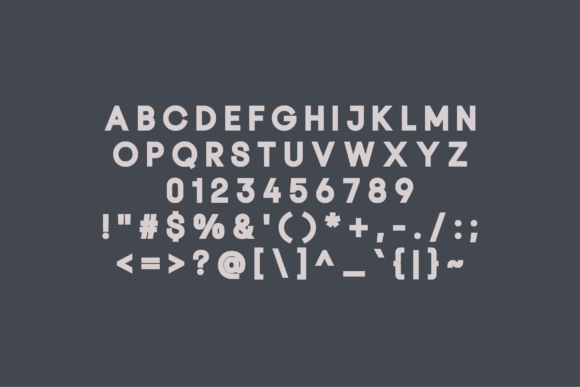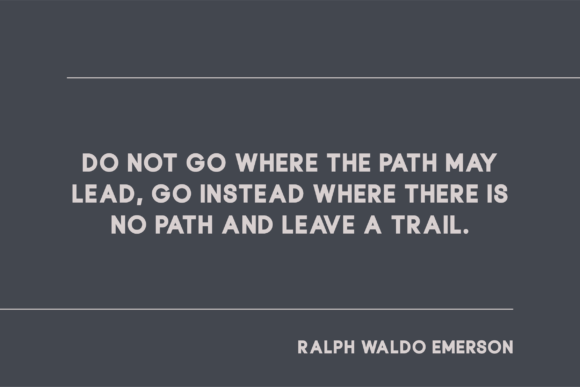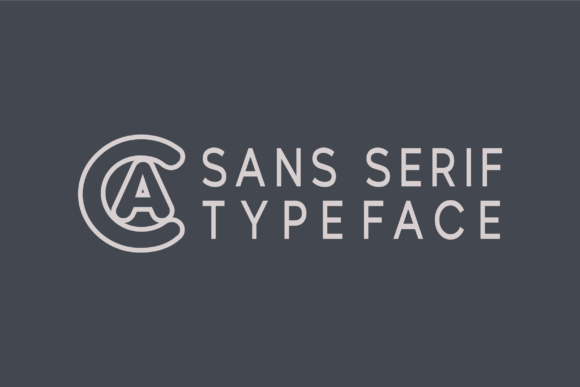
Introducing Autographia Font: Elevate Your Designs with Modern Elegance
In the world of typography, a font can make or break a design. It’s the foundation upon which creativity is built, and the right choice can elevate a project from ordinary to extraordinary. For designers and crafters seeking a modern, classy sans serif typeface, look no further than Autographia Font. This versatile and stylish font is poised to become your go-to choice for a wide range of projects, from logos and weddings to invitations, quotes, advertisements, and more.
What is Autographia Font?
Autographia is a contemporary sans serif typeface that exudes sophistication and elegance. Its clean lines and minimalist aesthetic make it perfect for designs that demand a touch of modernity. The font includes a comprehensive range of characters, featuring upper case letters, numbers 0-9, and a variety of punctuation and symbols. This extensive character set ensures that Autographia can be used in a multitude of contexts, providing flexibility and creativity for designers.
Key Features of Autographia Font
- Upper Case Characters: Autographia includes a full set of upper case letters, allowing for bold and impactful statements.
- Numbers 0-9: The font features clear and readable numbers, suitable for a variety of applications, from pricing to date displays.
- Punctuation and Symbols: A range of punctuation marks and symbols are included, providing everything needed to craft detailed and nuanced designs.
- Sans Serif Design: The clean, sans serif design of Autographia lends itself to a modern aesthetic, perfect for designs that require a sleek look.
One of the standout qualities of Autographia Font is its versatility. This font is not limited to a specific use case; rather, it can be seamlessly integrated into a wide array of projects. Here are some ideal applications for Autographia:
- Logos: Create memorable and impactful logos with Autographia’s bold and clean lines.
- Weddings and Invitations: Add a touch of modern elegance to wedding invitations, save-the-date cards, and other event-related materials.
- Quotes and Typography: Use Autographia to highlight inspirational quotes, phrases, or statements in your designs.
- Advertisements: Elevate your advertising materials with a font that commands attention and exudes professionalism.
- Print and Magazines: Autographia is perfect for editorial designs, including magazines, brochures, and flyers, where readability and style are paramount.
Why Choose Autographia Font?
With so many fonts available, why should Autographia be your top choice? The answer lies in its perfect blend of modernity and class. Autographia is not just a font; it’s a design statement. Its sleek lines and comprehensive character set make it an invaluable asset for designers and crafters looking to create high-quality, visually appealing projects. Moreover, the font’s versatility ensures that it can be used across various platforms and applications, making it a cost-effective solution for your design needs.
Autographia Font is a game-changer for designers and crafters seeking a modern, classy sans serif typeface. Its extensive character set, versatility, and sleek design make it the perfect choice for a wide range of projects. Whether you’re creating logos, wedding invitations, quotes, advertisements, or print materials, Autographia is poised to elevate your designs to new heights. Make the smart choice for your next project and experience the difference that Autographia Font can make.